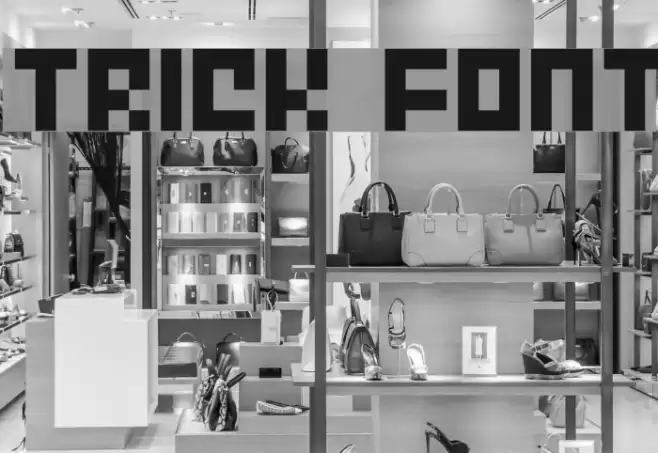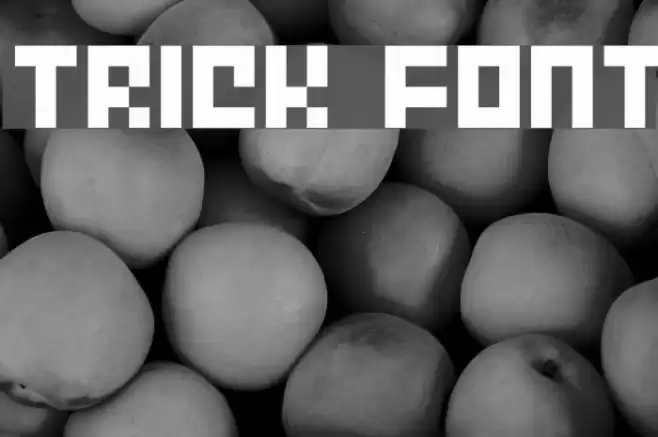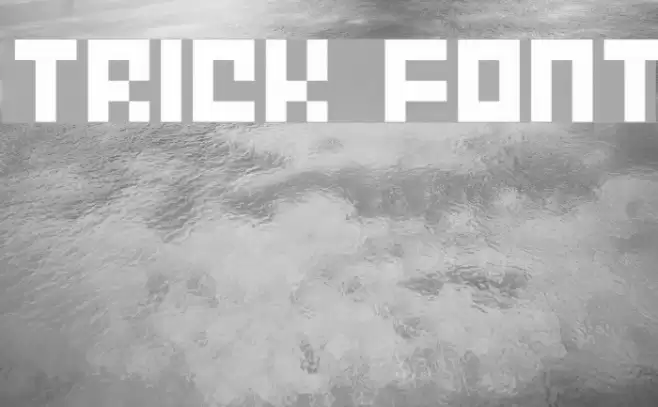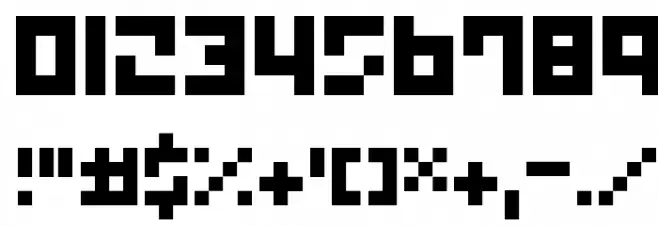
Trick Font
Trick Description
This font features a bold, geometric design with a distinctly modern and digital aesthetic. Each character is constructed with sharp, angular lines and a blocky structure, reminiscent of pixel art or early digital displays. The uppercase and lowercase letters share a similar height and width, creating a uniform appearance. Numbers and special characters maintain the same geometric style, ensuring consistency across all glyphs. The font's design is highly legible and impactful, making it suitable for attention-grabbing headlines or digital-themed projects.
A bold, geometric font with a modern, digital aesthetic from Uncategorized fonts.
- Proposed Projects: Ideal for video game graphics, tech-themed posters, digital art, and futuristic branding.